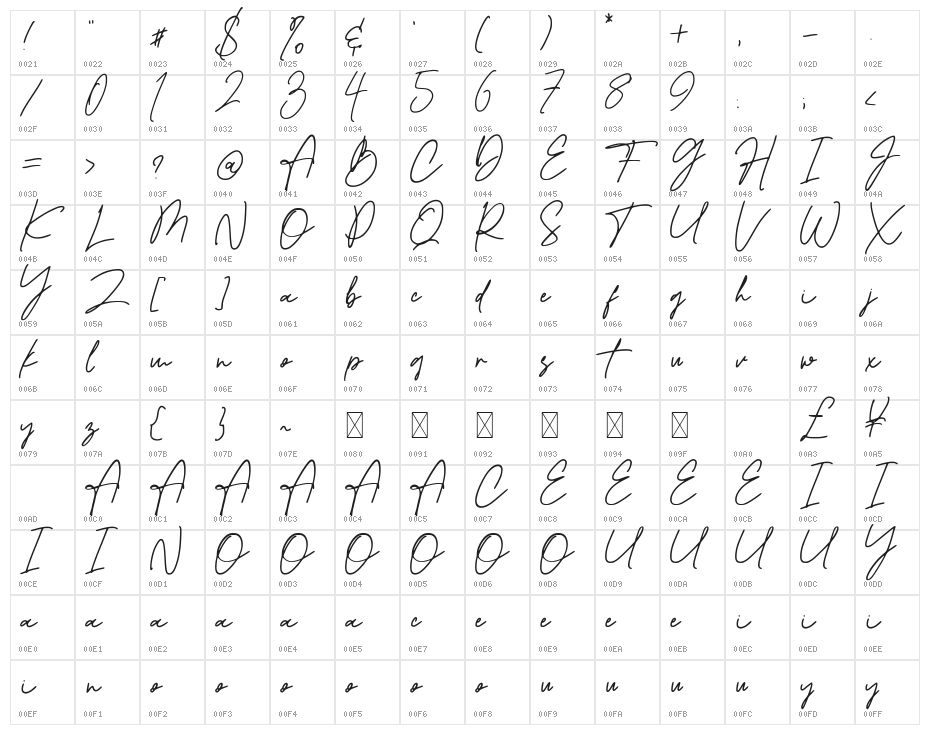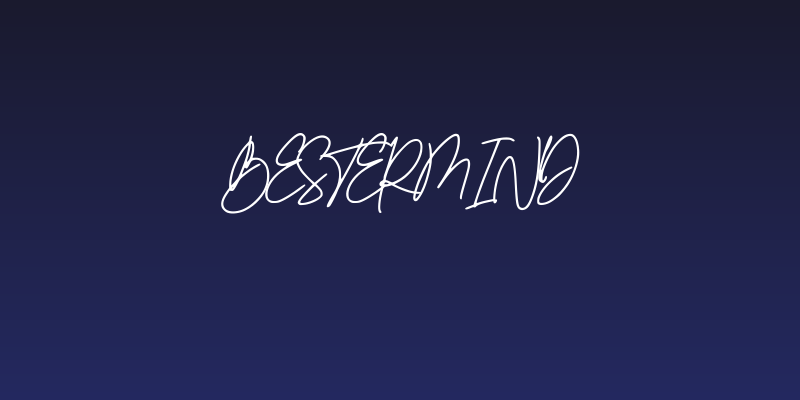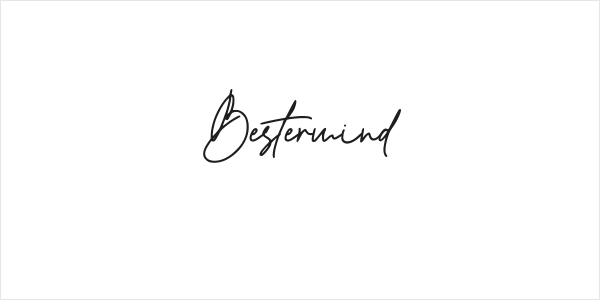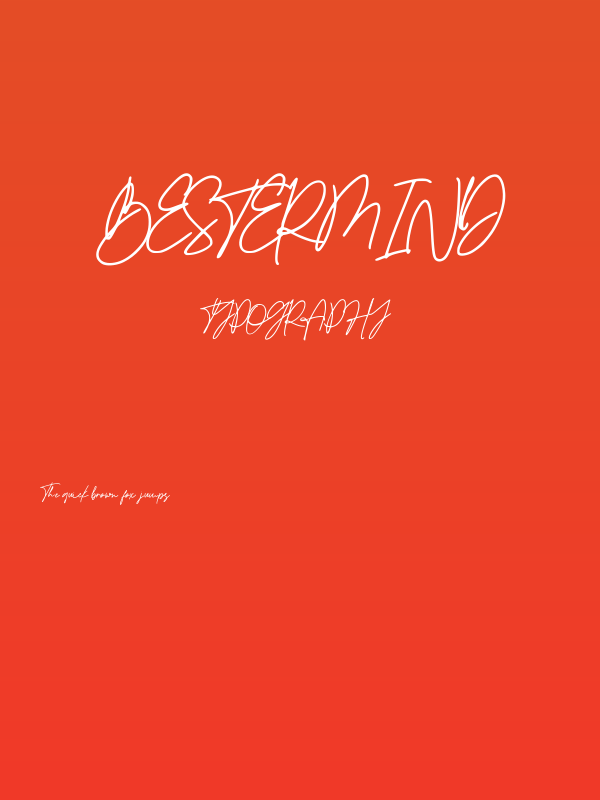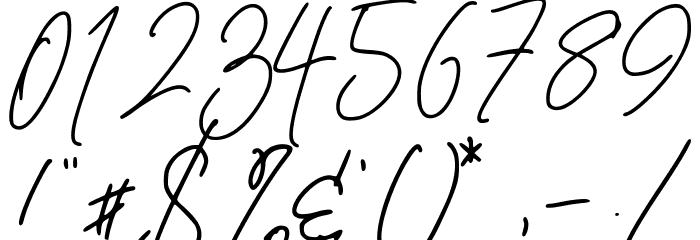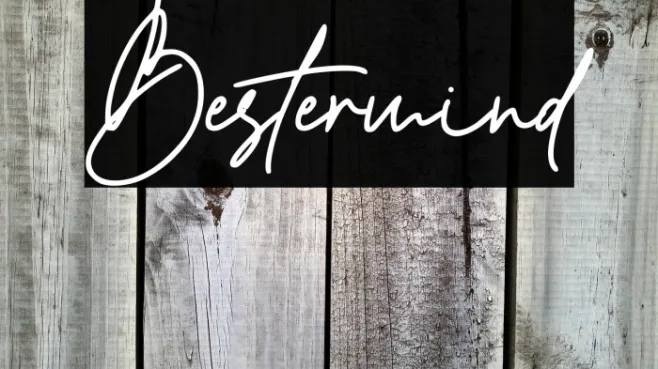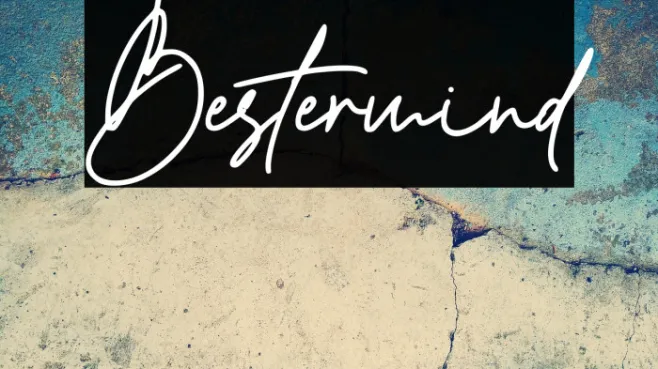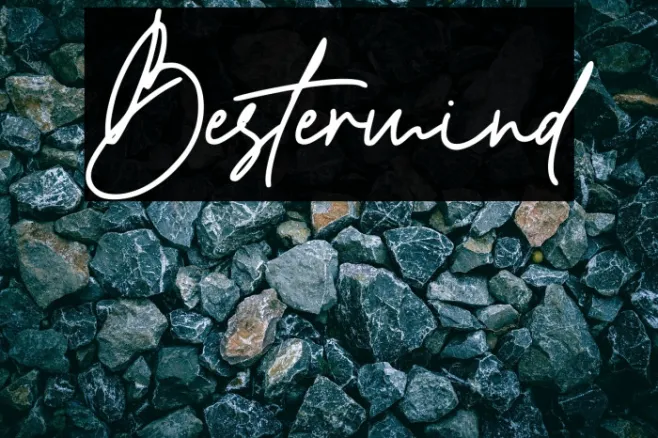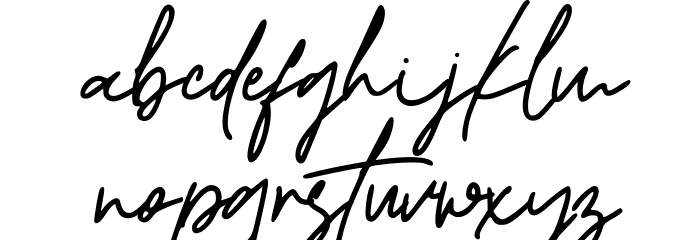
Bestermind Font
Bestermind Description
This font exudes a dynamic and expressive handwritten style, characterized by fluid, cursive strokes that convey a sense of elegance and spontaneity. The uppercase letters are bold and sweeping, while the lowercase letters maintain a consistent flow, enhancing readability despite their artistic flair. Numbers and special characters are crafted with the same attention to detail, ensuring a cohesive look across all text elements. The overall design is both modern and timeless, making it suitable for a variety of creative applications.
| Proposed Projects | Ideal for wedding invitations, personal branding, greeting cards, and artistic projects requiring a personal touch. |